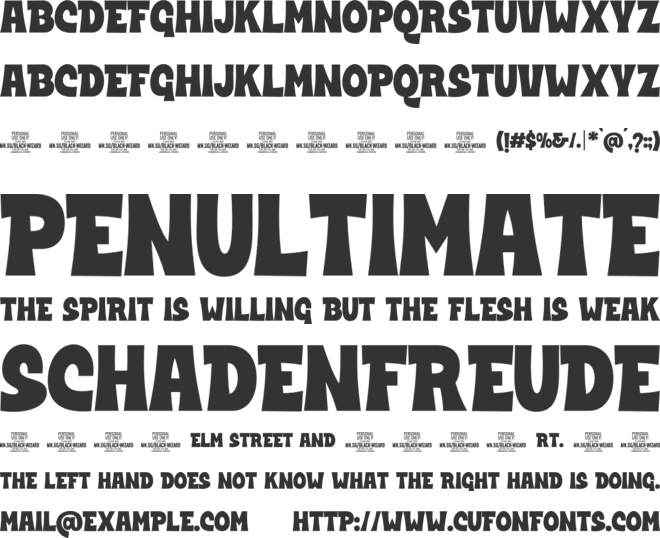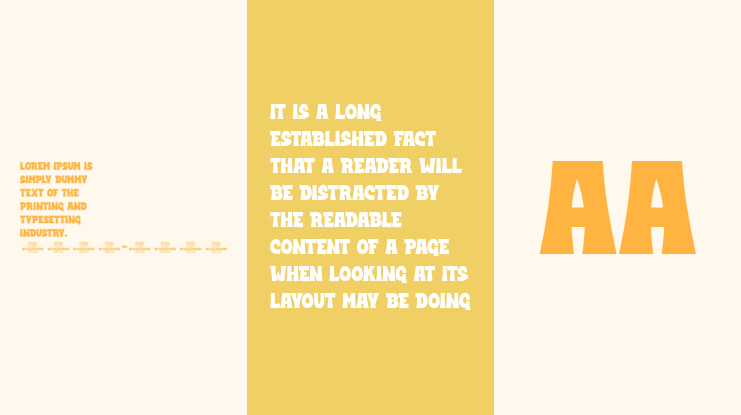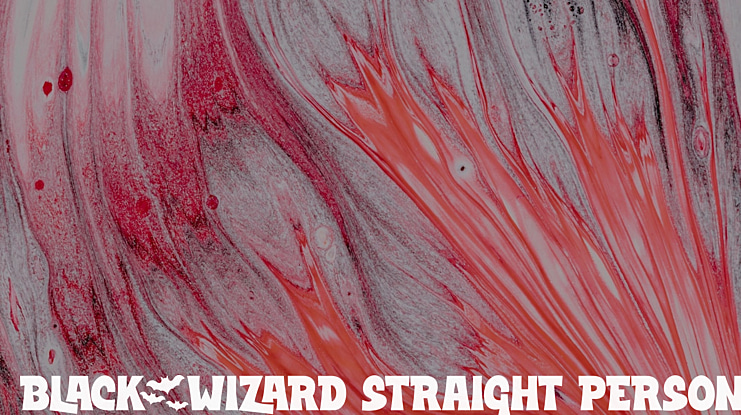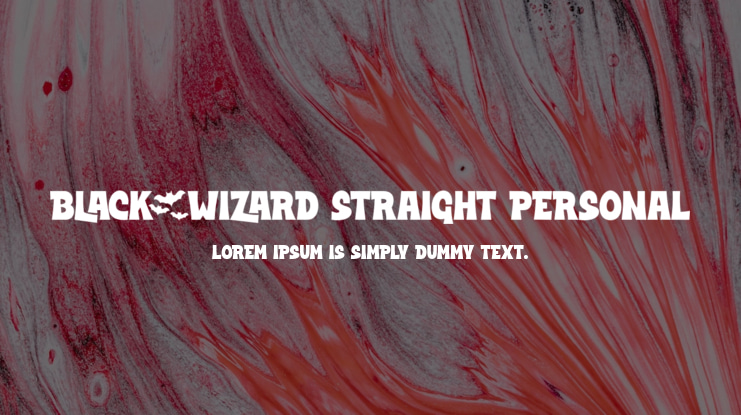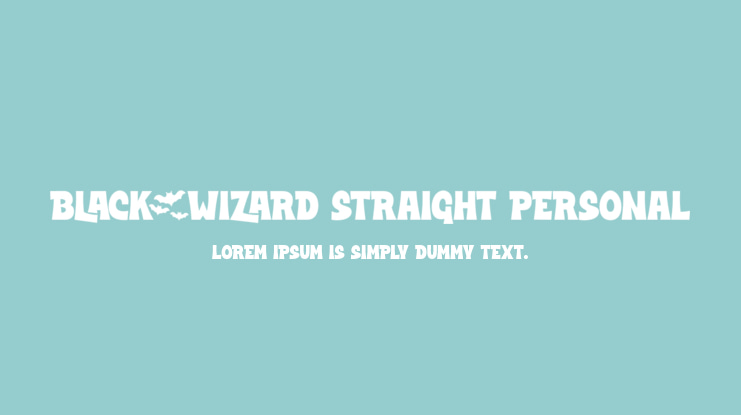
Black Wizard Straight PERSONAL Font
Black Wizard is a bold and funky sans-serif font with a playful charm.
It works exceptionally well for Halloween-themed designs, as its eccentric appearance can bring an added touch of spookiness to your projects.
You can incorporate the character ¤ into any word to create a Halloween symbol.
For instance, Scare¤Crow.